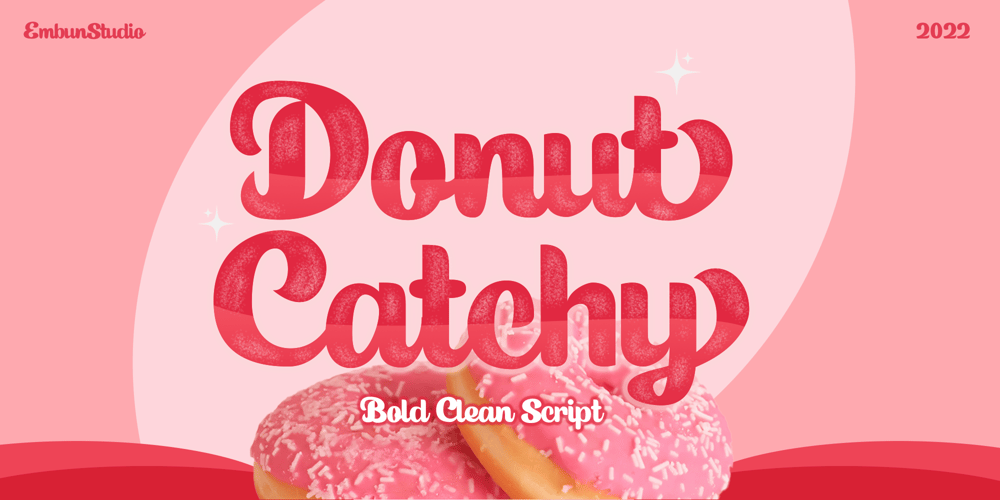
Donut Catchy Font Family was designed by Aditya Rezki Apriyadi and published by EmbunStudio2018. Donut Catchy contains 1 styles and family package options. You came to the right place, if you need a Bold Clean Script font to make your project perfectsuch a logo design project, poster design, brand identity, heading, wedding, greeting cards, invitation and morethis script handwritten font is into it !I Created this font for social media need first, but i think this logo is great for corporate branding or logo design project too and boom ! Of Course !